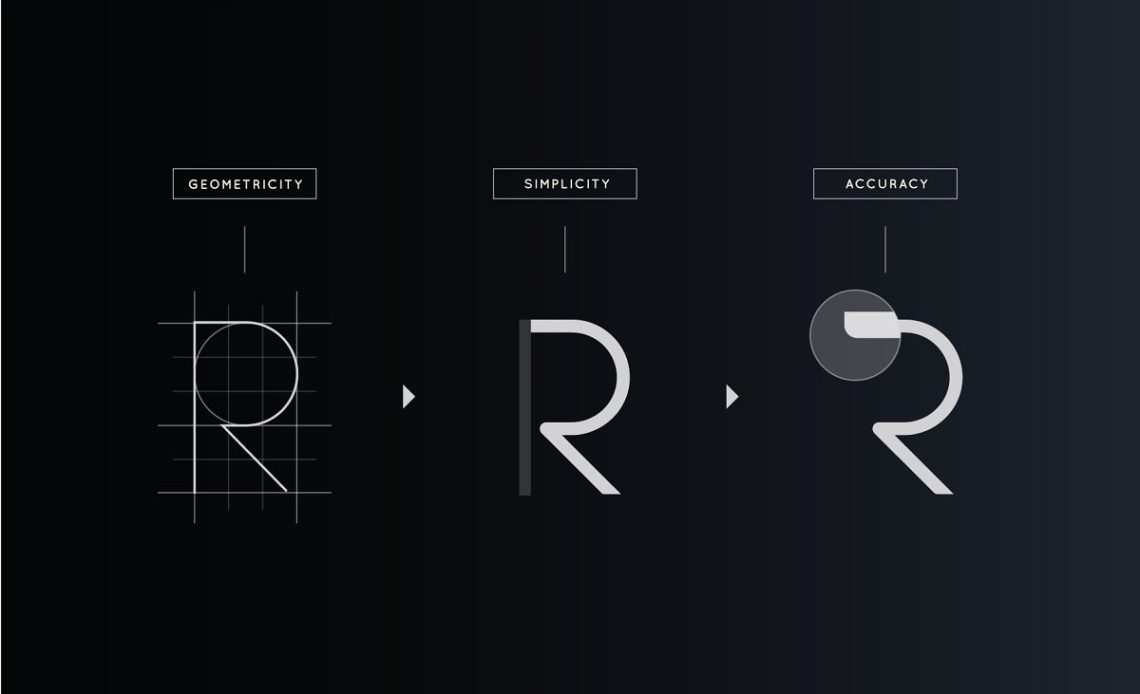
Introducing Futurism Headline Font, a sleek and modern sans serif font designed by Yehor Lisnyi. This futuristic font is the perfect addition to any designer's toolkit, and it's ideal for creating logos, emblems, and posters.
Futurism is a font for body text that supports both the Latin and Cyrillic alphabets, making it versatile for any design project. Its unique style and elegant curves will elevate your designs to the next level.
With uppercase and lowercase English letters, uppercase Cyrillic letters, and numbers, Futurism gives you everything you need to create eye-catching designs. But it's not just the functionality of this font that sets it apart - it's also incredibly stylish.
Futurism has a cool, space-age vibe that's perfect for any project with a futuristic or tech theme. It's an innovative font that will give your designs a modern edge and captivate your audience.